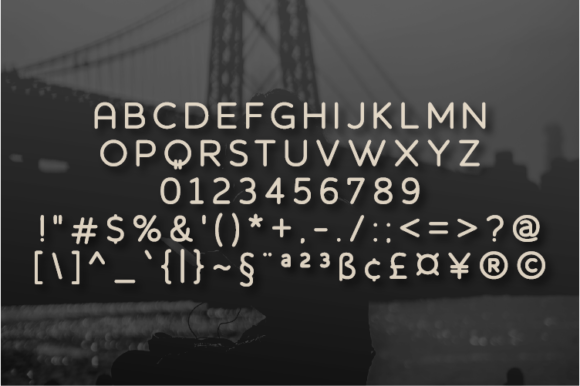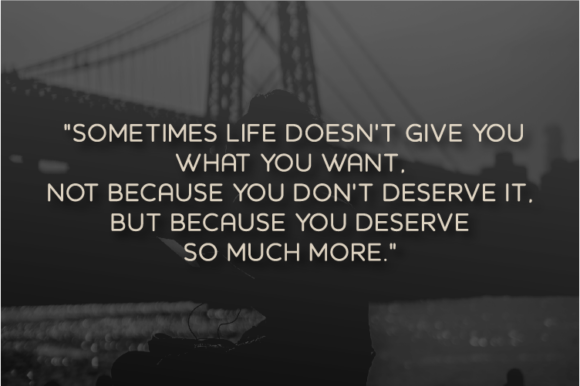
The Alessie Font: A Minimal, Round Lettered Sans Serif Game-Changer
I’ll never forget the time I was working on a branding project for a new coffee shop. I had the logo design nailed, but I was struggling to find the perfect font to complement it. That’s when I stumbled upon the Alessie font. Its clean, round lines and effortless charm instantly won me over. In this article, I’ll share my experience with Alessie, its features, and how to make the most of it in your designs.
An Honest Review of Alessie Font
What I Love About Alessie ✨
- ✅ Minimalist design that’s perfect for modern brands
- ✨ Highly versatile and adaptable to various projects
- ✅ Easy to read, even at small font sizes
- ✨ Beautifully crafted to add a touch of elegance to any design
- ⚠️ Limited number of stylistic alternates, which might not be ideal for projects requiring extensive customization
- ⚠️ May not be the best fit for very formal or traditional designs, as it has a relatively casual feel
The Story Behind Alessie Font
Alessie was designed with the goal of creating a clean, modern sans serif font that could be used in a wide range of projects. The designer, inspired by the beauty of simple shapes and lines, crafted Alessie to be a versatile and elegant font that could add a touch of sophistication to any design.
Q: What type of projects is Alessie font best suited for?
A: Alessie font is perfect for modern brands, digital designs, and creative projects that require a clean and elegant look.
Q: Is Alessie font suitable for body text?
A: Yes, Alessie font is easy to read and can be used for body text. However, it’s recommended to use a font size of at least 14px for optimal readability.